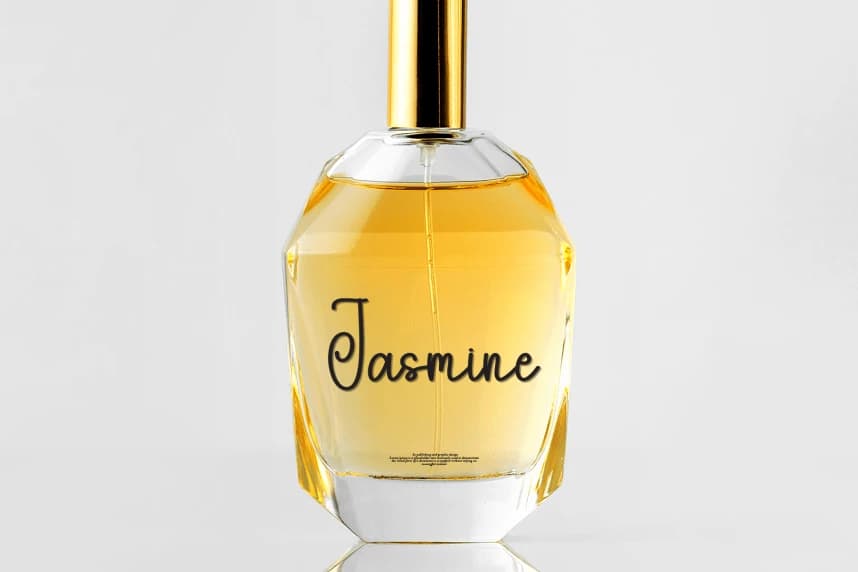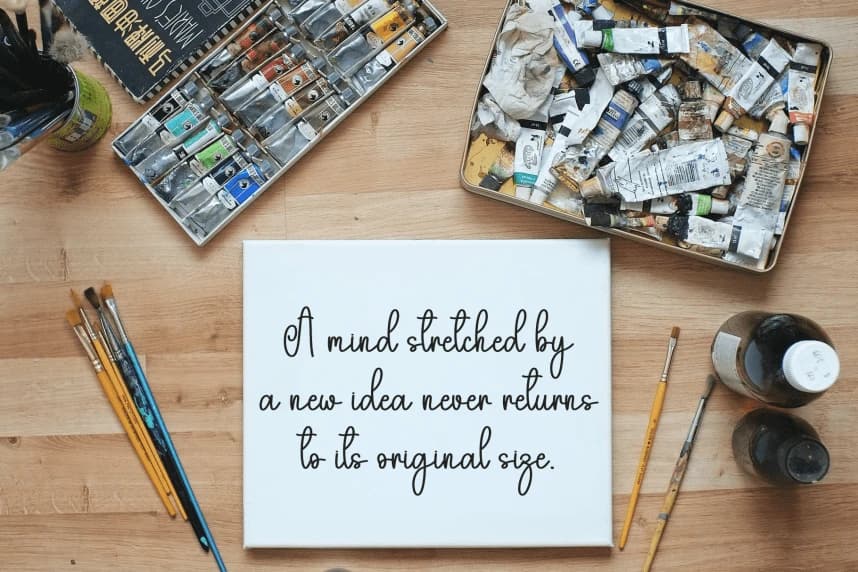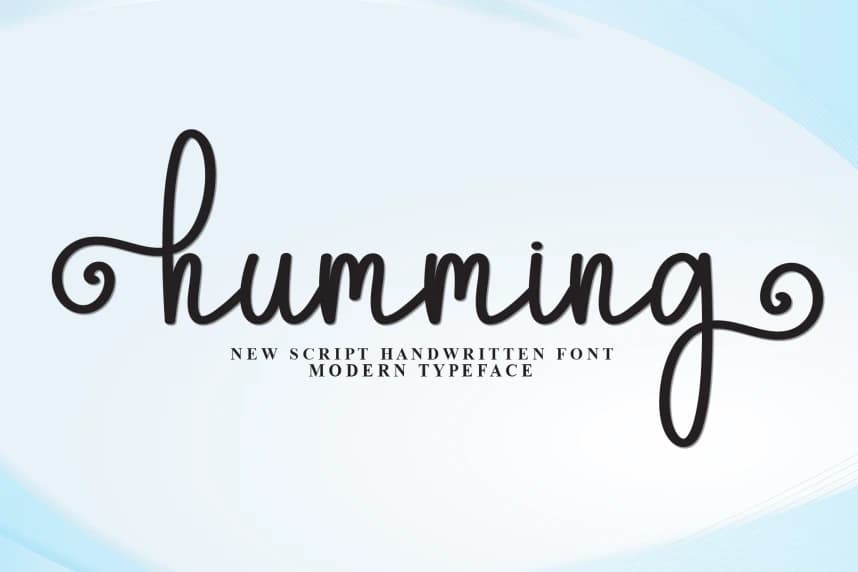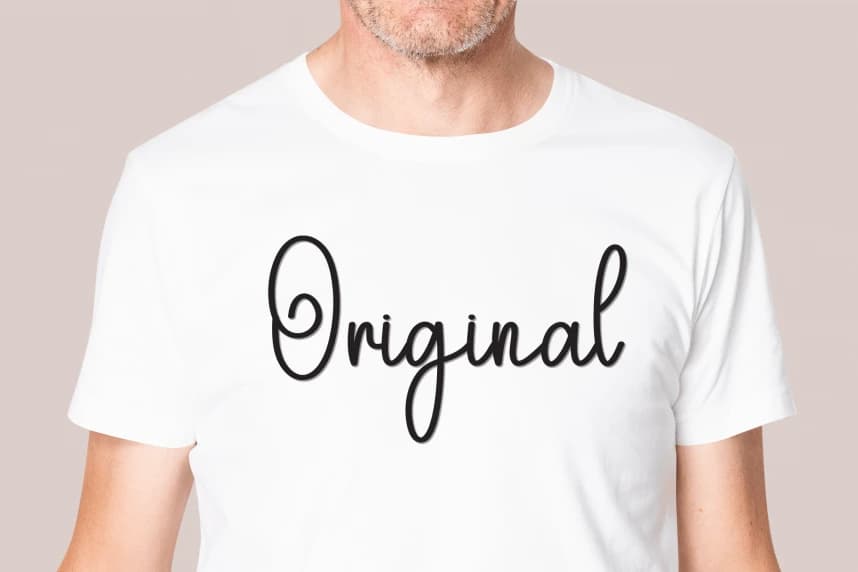
Humming Handwritten Font
Humming Handwritten Font is a sweet and friendly handwritten display font. Cute and fun, this font is ideal for writing wedding invitations, cards, or any